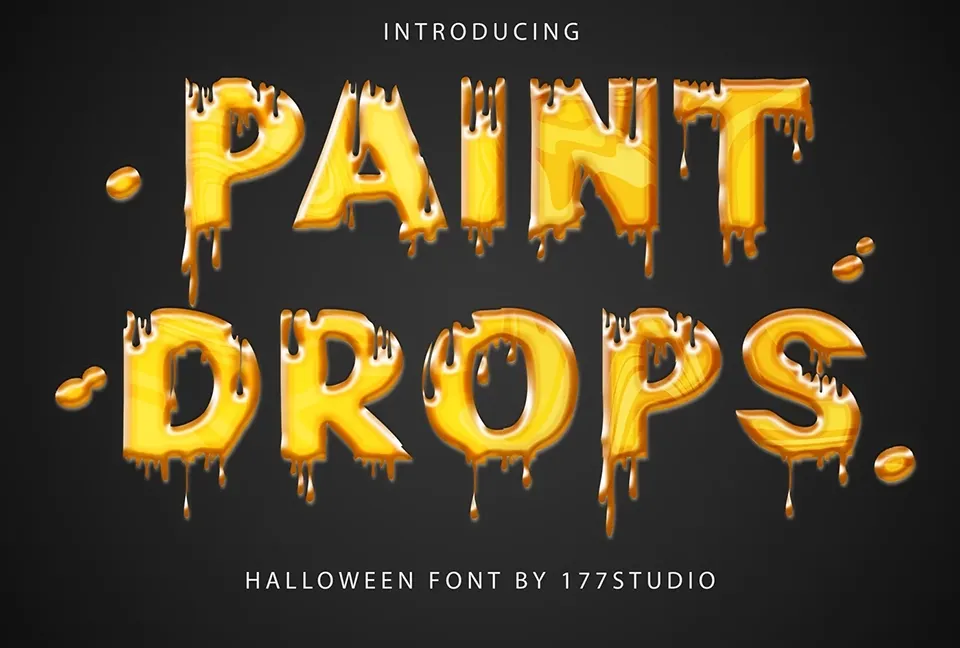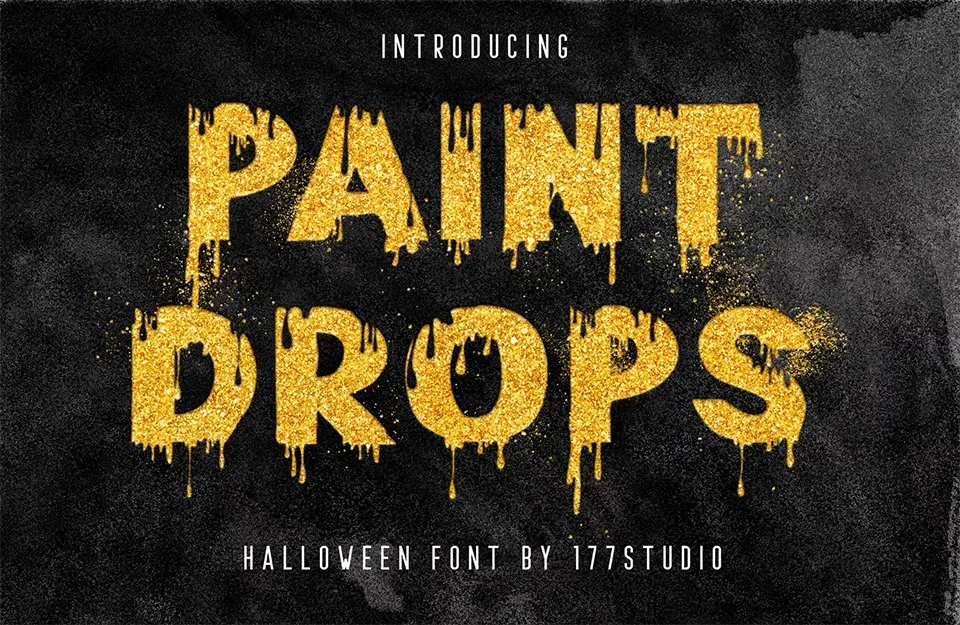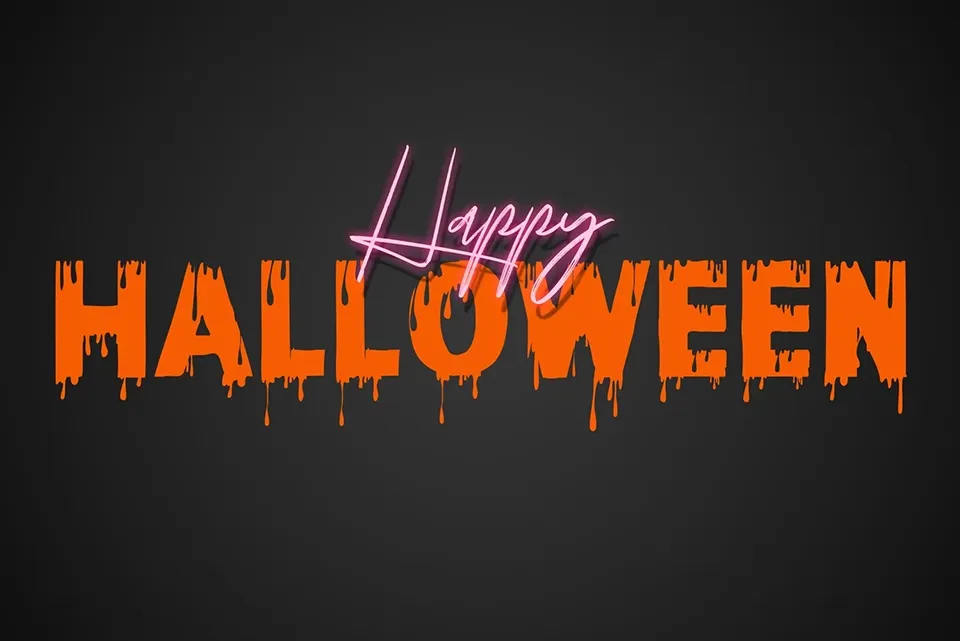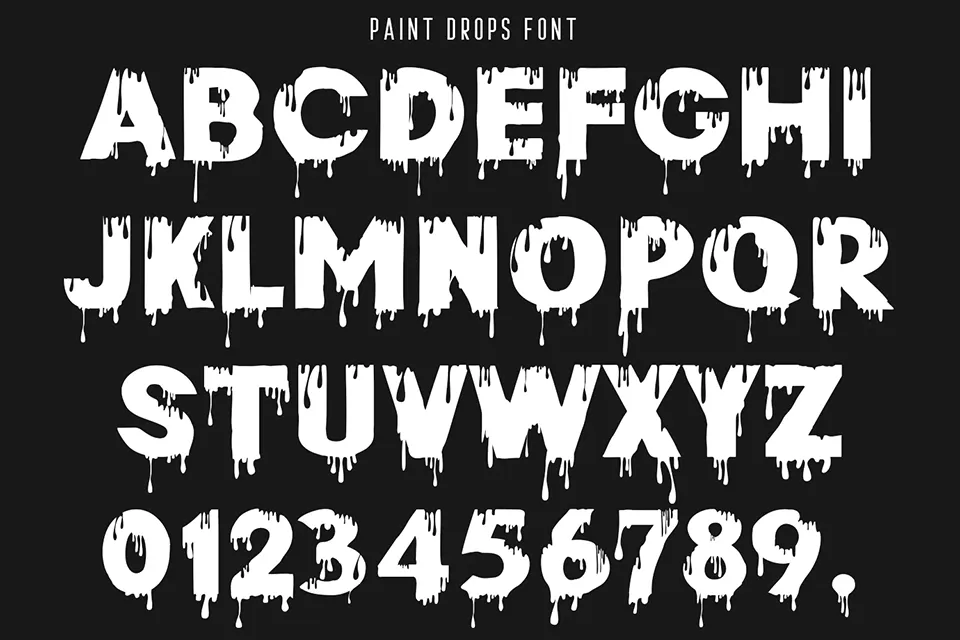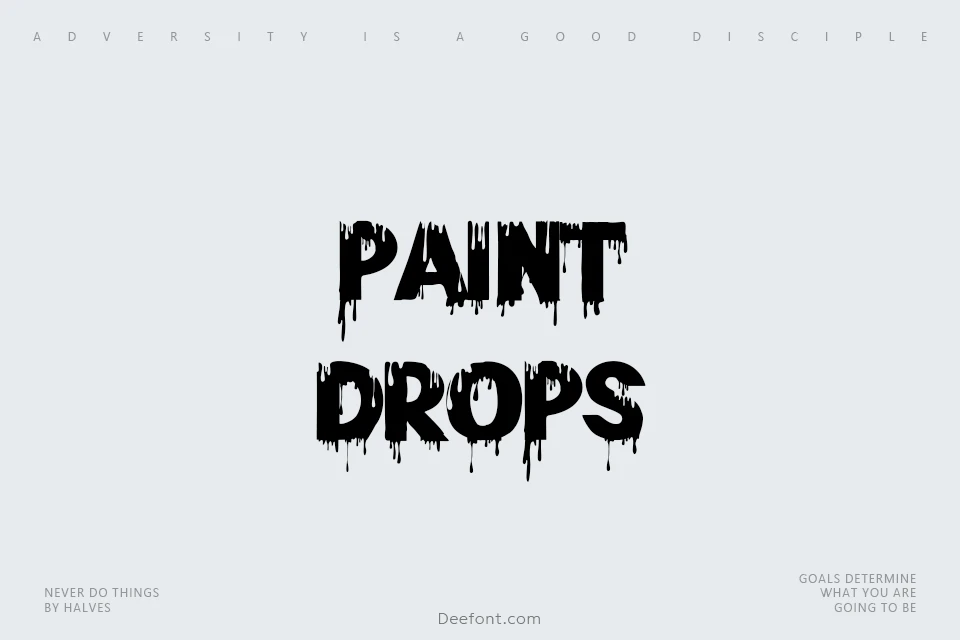
Paint Drops Font
Paint Drops Font is a bold and incredibly unique display font designed by 177Studio, featuring a dripping paint effect that makes it perfect for Halloween, horror, and retro-themed projects. With its eye-catching style, it stands out in posters, invitations, and creative designs, evoking a mid-century scary vibe. The font includes uppercase and lowercase letters, numerals, punctuation, and accented characters, making it versatile for various creative applications.